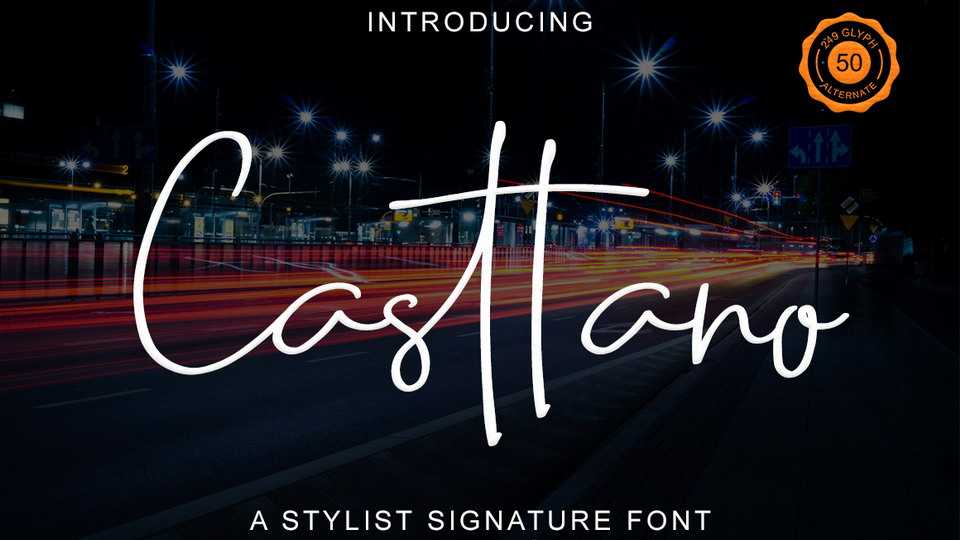
Download Casttano font, a modern signature script, every single letters have been carefully crafted to make your text looks beautiful. Casttano font will perfect for many different project ex: photography, watermark, quotes, blog header, poster, wedding, branding, logo, fashion, apparel, letter, invitation, stationery, etc.
Designer: BearyType